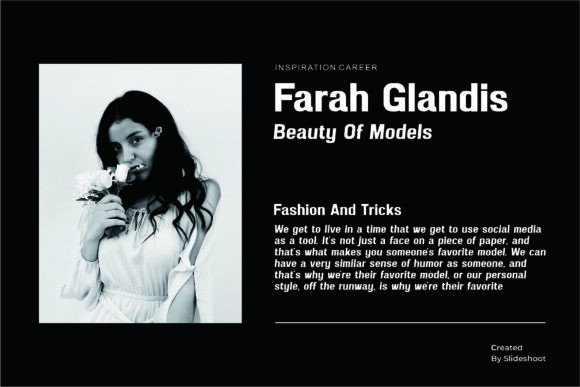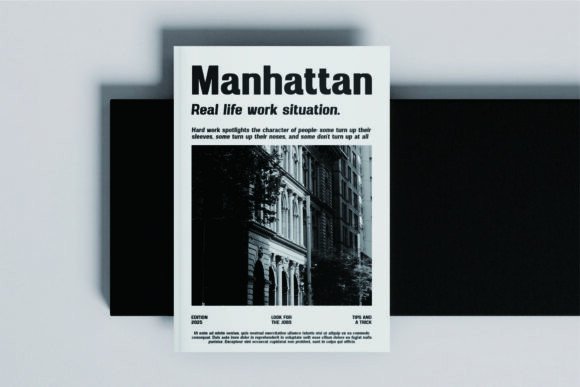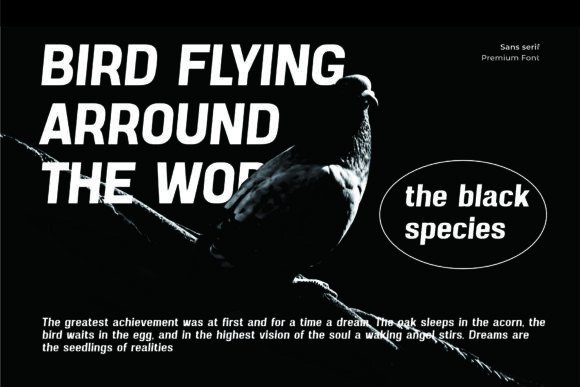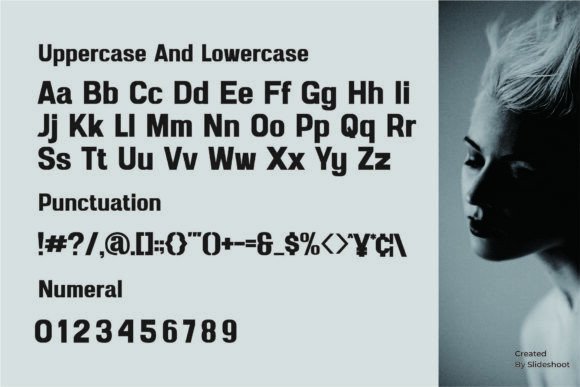
Introduction to Pasfern De Micholin Font
Pasfern De Micholin is a bold and modern sans serif typeface with an italic slant, giving it a sense of movement and energy.
| ๐ค Author | Idea Studio |
Designed for contemporary branding, advertisements, headlines, and digital marketing, this font combines strength and style effortlessly If youโre looking for a typeface that stands out with confidence and power, this is it.
Key Features of Pasfern De Micholin Font
Why Choose Pasfern De Micholin Font?